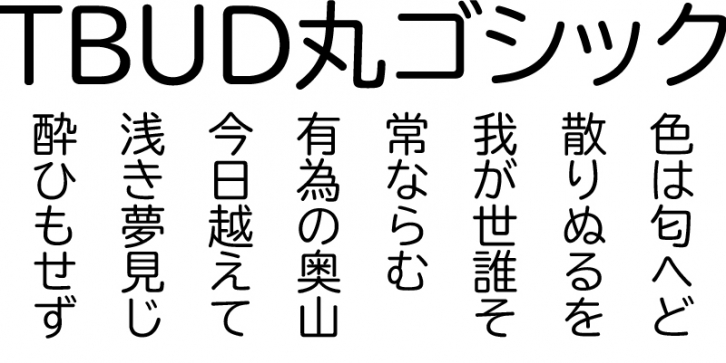
TypeBank UD Maru Gothic is a universal design rounded sans with a soft structure and a friendly expression. Designed in pursuit of on-screen readability, the kana bases its design on Digital Maru Gothic created for subtitles, improving legibility by making the loops of the characters such as む and㙠clearer and enlarging dakuten (゛) and handakuten (゜) voicing marks.